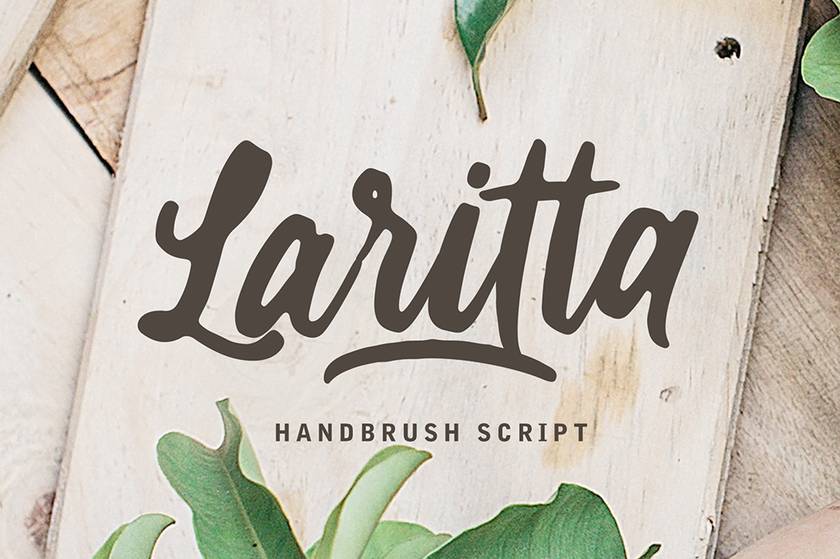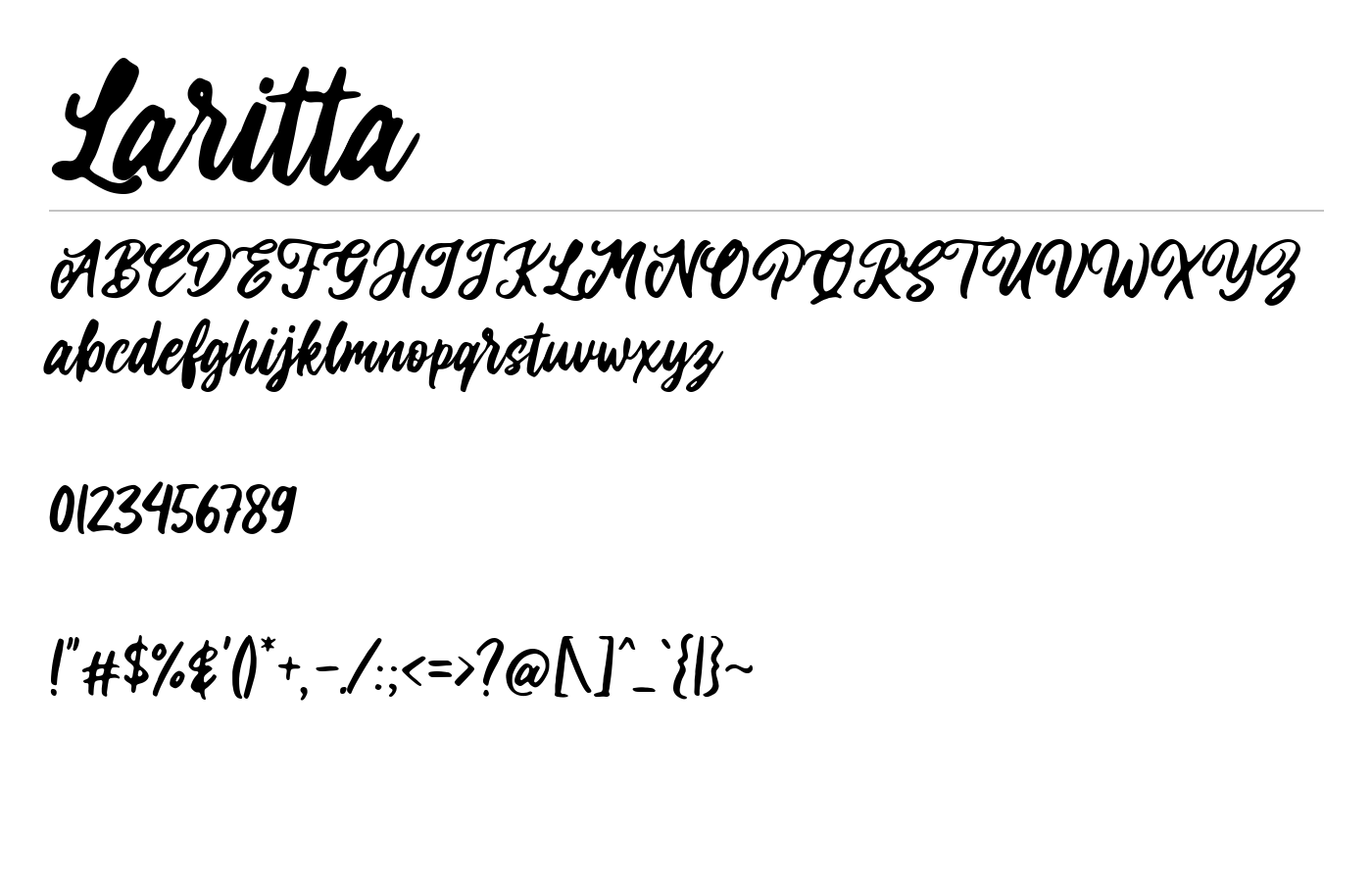
Laritta is a bold, cursive script font with a lively, handcrafted feel that combines smooth, flowing strokes and stylish letterforms. Its rounded edges and moderate contrast give it a friendly yet elegant personality, making it perfect for branding, invitations, and creative headlines that seek a personal touch. This font works well for projects that want to convey warmth, creativity, and charm with a modern, handwritten flair.
Laritta Font
About Laritta Font
| Font family | Laritta Font |
| Designer | Wahyu Andi |